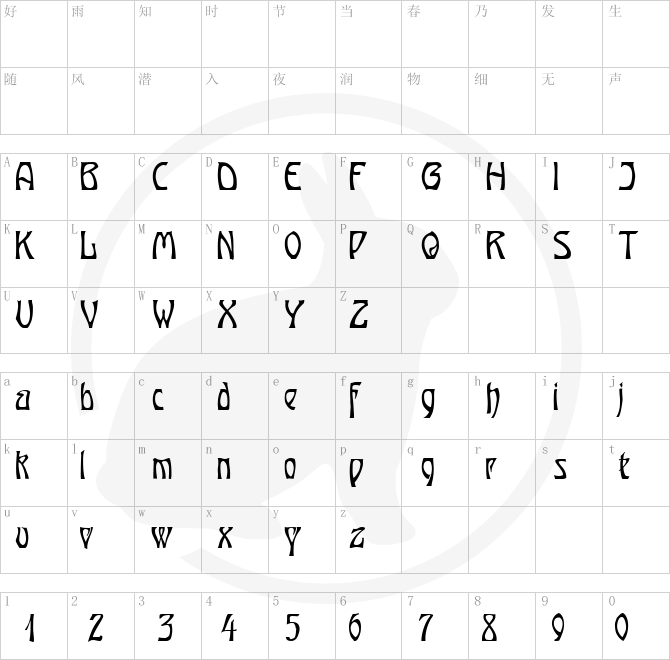
Ober-Tuerkheim.ttf is a very beautiful artistic font, Ober-Tuerkheim.ttf is widely used in the design and printing of various books and pictures,Ober-Tuerkheim.ttf has a strong visual impact,Ober-Tuerkheim.ttf is a commonly used font in newspapers, magazines and books, and is used in posters, e-commerce Poster design, store design, logo design, font design and other fields.Ober-Tuerkheim.